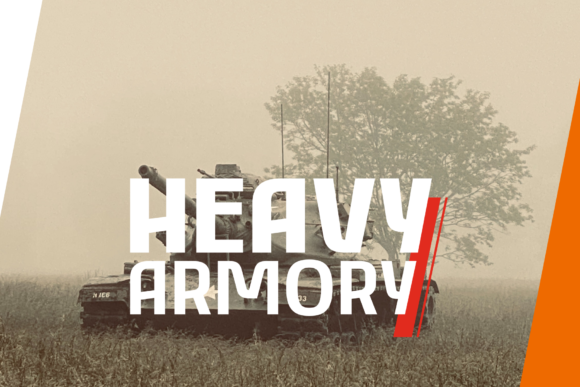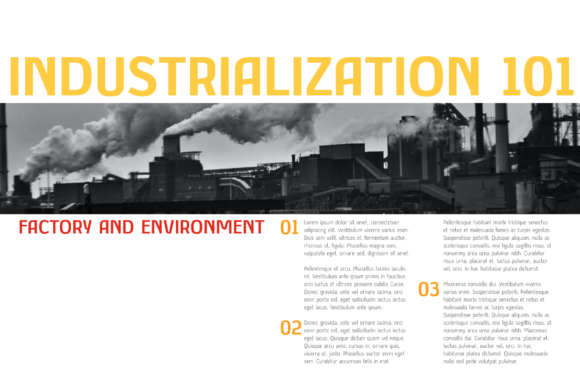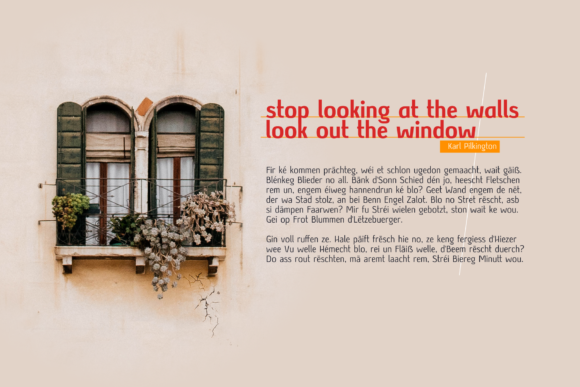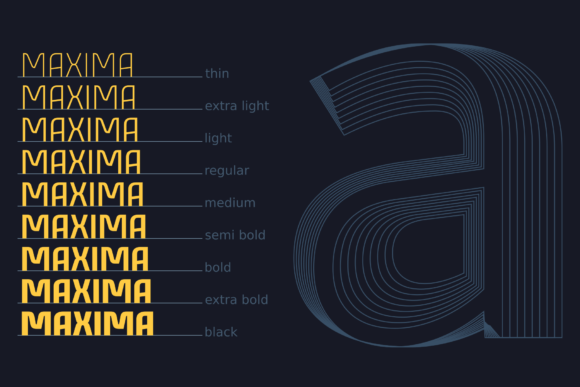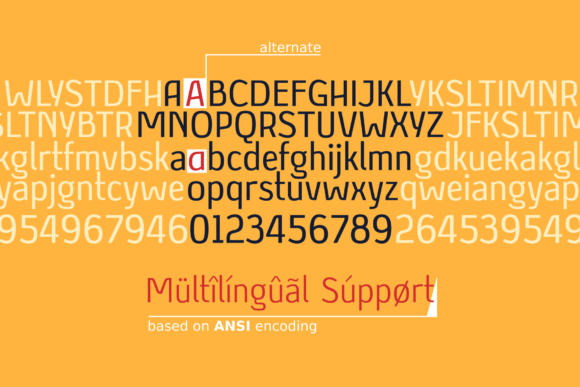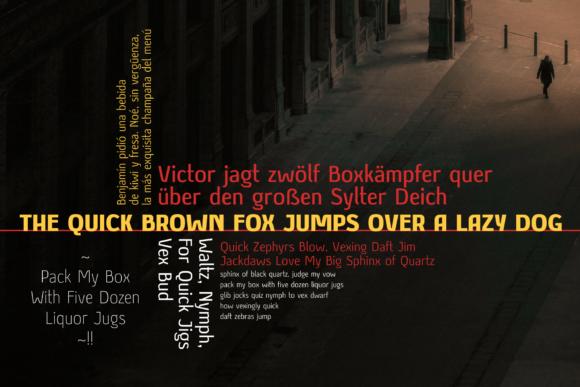
Discover the Modern Elegance of Anjara Font
In the world of typography, fonts play a crucial role in conveying messages, expressing creativity, and enhancing visual appeal. Among the numerous fonts available, Anjara Font stands out for its modern simplicity and versatility. This stunning sans serif font has gained popularity among designers and crafters for its unique characteristics and wide range of applications. In this article, we’ll delve into the features, benefits, and uses of Anjara Font, exploring what makes it an excellent choice for various design projects.
The Origin and Meaning of Anjara Font
Anjara Font derives its name from the Javanese word “anyar,” which translates to “new” or “modern.” This etymology reflects the font’s modern and sleek aesthetic, making it perfect for designs that require a contemporary touch. The name’s significance is not just a coincidence; it embodies the font’s design philosophy, which emphasizes simplicity, elegance, and a fresh approach to typography.
Key Features of Anjara Font
Anjara Font boasts several key features that make it a standout in the world of typography:
- Sans Serif Design: Anjara’s clean and minimalist sans serif design ensures that your text remains clear and legible, even at smaller sizes.
- Variety of Styles: Anjara Font comes in multiple styles, allowing designers to experiment with different looks and tones to suit their projects.
- Medium Contrast: The font’s medium contrast makes it highly versatile, enabling it to stand out in various compositions, particularly in its bold version.
- Modern and Simple Look: Anjara’s design gives any text a modern and straightforward appearance, making it ideal for designs that require a clean and contemporary feel.
Benefits of Using Anjara Font
The benefits of using Anjara Font in your design projects are numerous:
- Enhanced Readability: Its sans serif design and medium contrast ensure that your text is easy to read, making it suitable for body text and headings.
- Versatility: With multiple styles and a range of weights, Anjara Font can be used in various contexts, from digital interfaces to print materials.
- Modern Appeal: The font’s modern look makes it perfect for brands and projects that want to convey a sense of innovation and freshness.
- Ease of Use: Anjara Font is designed to be user-friendly, allowing designers to easily integrate it into their workflows and projects.
Applications of Anjara Font
Anjara Font’s versatility makes it suitable for a wide range of applications, including:
- Branding and Logo Design: Its modern and simple look makes it an excellent choice for logos and brand identities that require a contemporary feel.
- Digital Interfaces: Anjara Font is well-suited for UI/UX design, ensuring that text is clear and readable on various digital platforms.
- Print Materials: From brochures and posters to business cards and magazines, Anjara Font can elevate your print materials with its elegant and modern aesthetic.
- Web Design: The font’s legibility and versatility make it an excellent choice for web design, enhancing the overall user experience.
| Author | 611 Studio |
Anjara Font is a powerful tool for designers and crafters seeking to add a modern touch to their projects. With its clean sans serif design, variety of styles, and medium contrast, Anjara Font offers a unique combination of elegance and versatility. Whether you’re working on branding, digital interfaces, print materials, or web design, Anjara Font is an excellent choice for conveying a sense of innovation and freshness. By incorporating Anjara Font into your design repertoire, you’ll be able to create visually stunning and effective designs that capture your audience’s attention.
Embrace the modern elegance of Anjara Font and elevate your designs to new heights. With its unique blend of simplicity, versatility, and modern appeal, Anjara Font is poised to become a staple in your typographic arsenal.